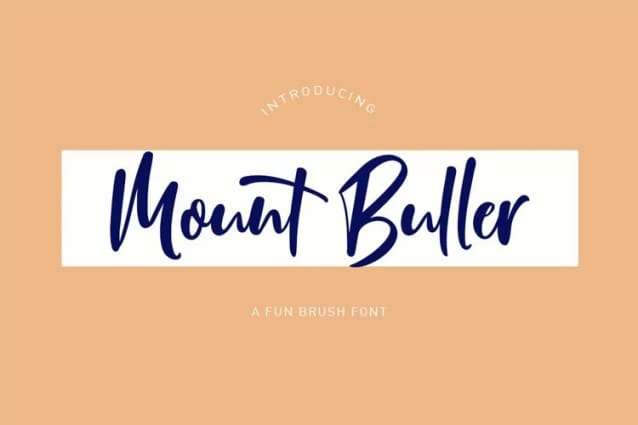
Mount Buller Font
Mount Buller Font is a hand-brushed modern calligraphy script font, created with both pen & brush. dancing baseline with separate swashes that can be applied to the beginning and ends of all lowercase. MountBuller includes several ligatures, alternates and international support for most western languages.